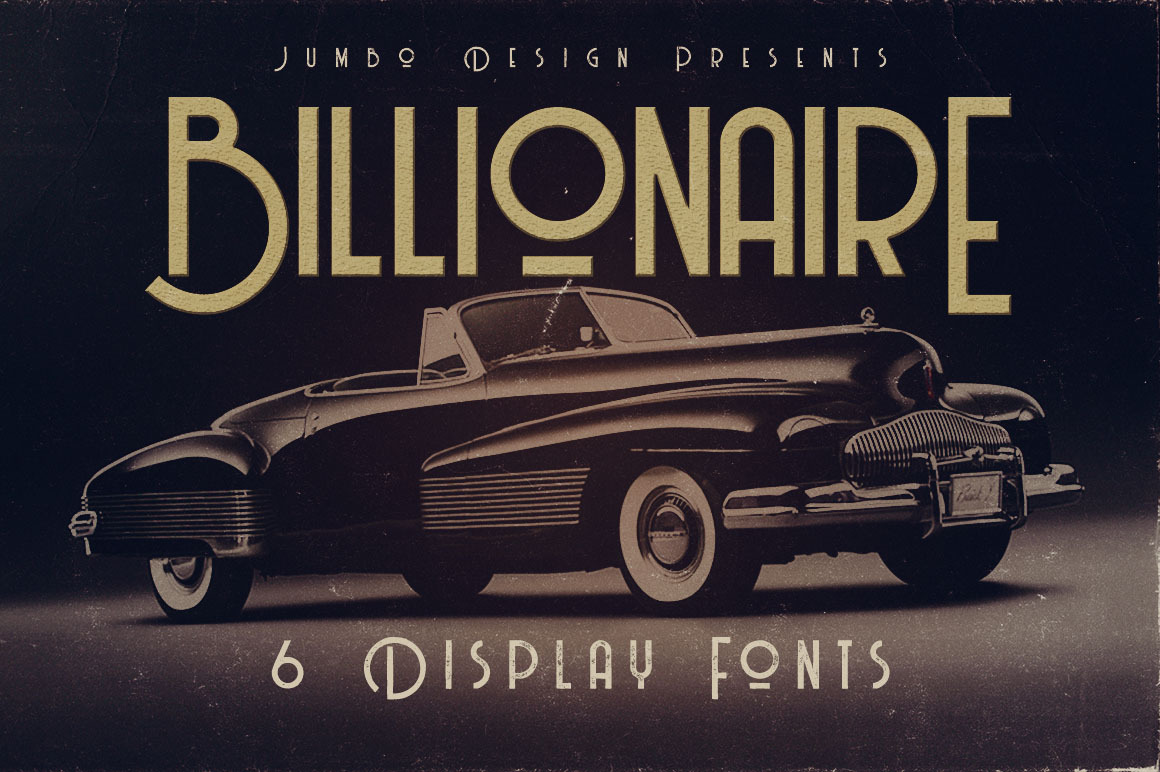
Billionaire - Display Font
Unique vintage or retro style custom sans serif font with 6 styles: regular and grunge, thin and thin grunge & medium & medium grunge
- Multilanguage characters